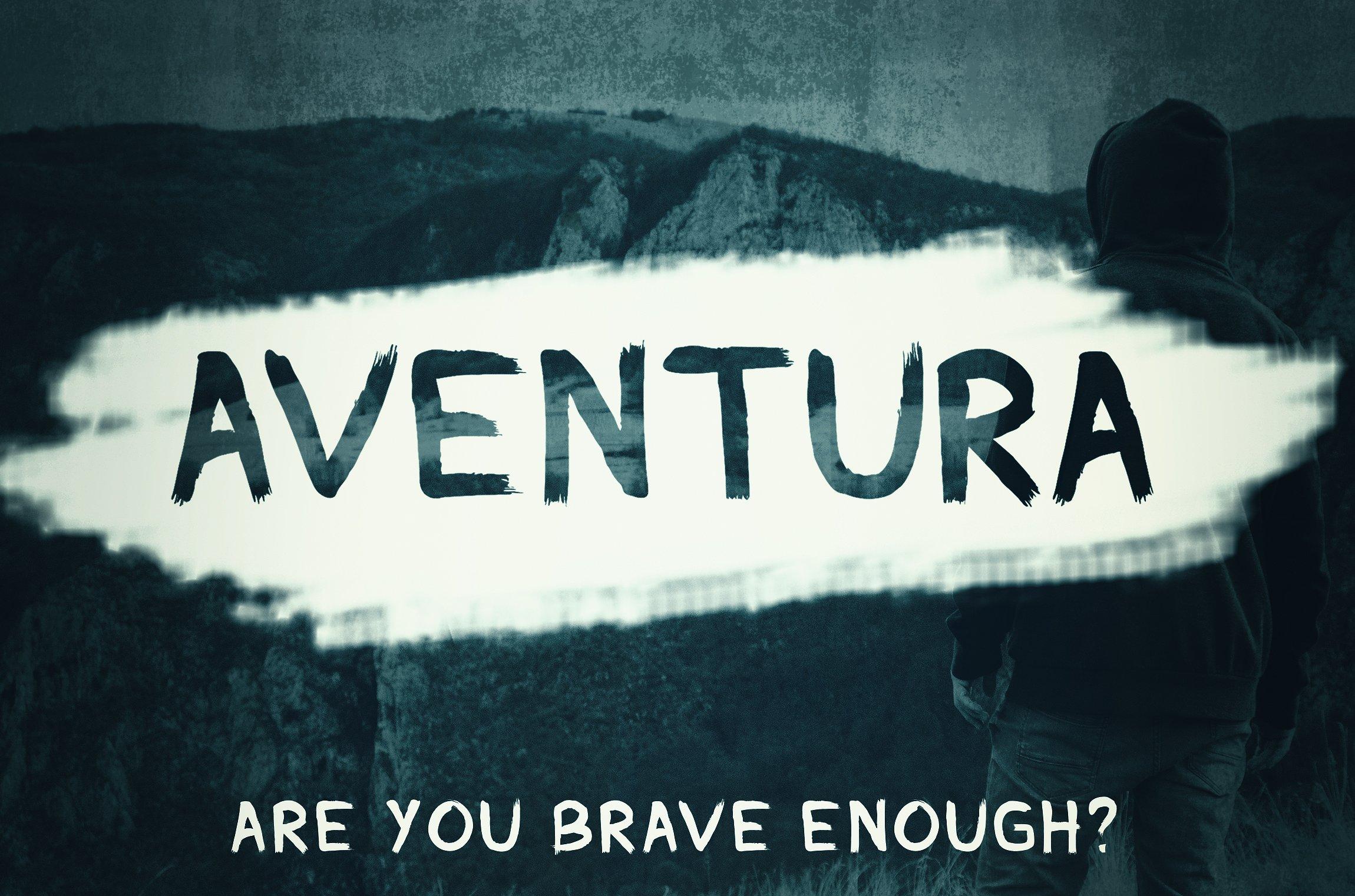
Aventura is a hand crafted font, made for travelers who are not afraid to venture into the unknown. The font is an all caps set, and can be used to give your design a wanderlust appeal.